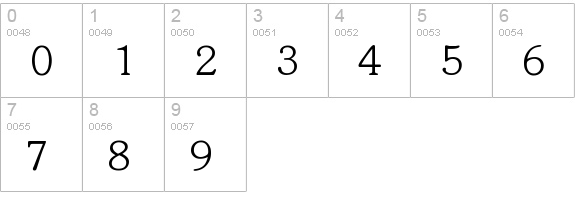
SunsetSerial-Xlight-Regular is the standard, neutral variant in the SunsetSerial typeface family \xE2\x80\x94 well suited to general body text, paragraphs, and standard typographic work.
SunsetSerial-Xlight-Regular is a sleek and modern font that exudes elegance and sophistication. With its clean lines and gentle curves, this typeface brings a touch of refinement to any design project. The lightweight design of SunsetSerial-Xlight-Regular makes it perfect for adding a subtle yet stylish flair to headers, logos, and branding materials. The best part is that SunsetSerial-Xlight-Regular is completely free! You can easily download this stunning font at FontsMarket.com, where you'll find a wide selection of high-quality fonts for all your creative needs. Don't miss out on the opportunity to enhance your designs with the beauty and versatility of SunsetSerial-Xlight-Regular.